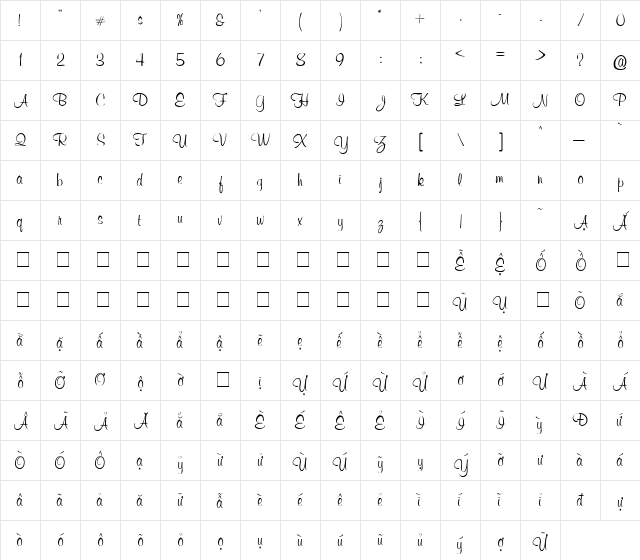
VI Huyen Lieu 1.0 Regular
Design Context for VI Huyen Lieu 1.0 Typeface
VI Huyen Lieu 1.0 takes a measured approach to typography — its balanced proportions and neutral character make it a reliable workhorse for both digital and print work.